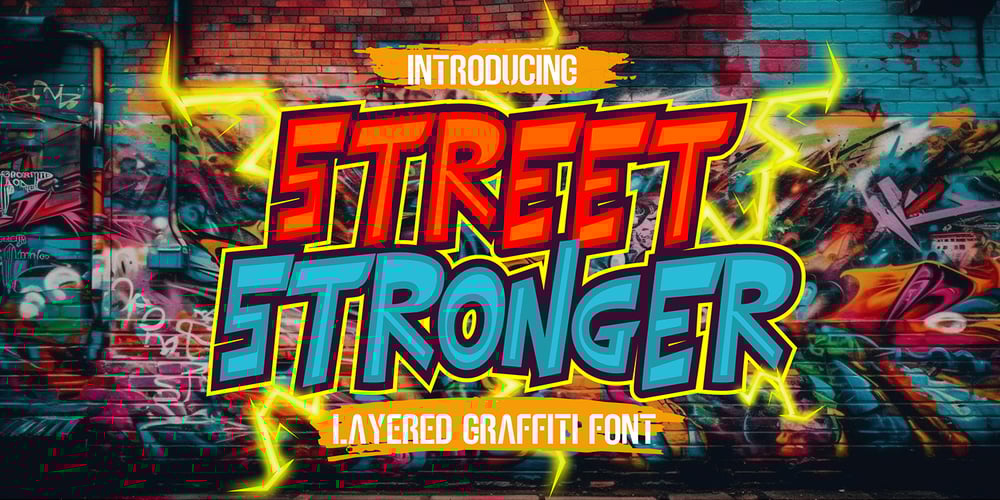
Street Stronger Font Family was designed by Sipanji and published by Sipanji21. Street Stronger contains 3 styles and family package options. “Street Stronger” is a graffiti font with three layers that can be used to create a three-dimensional (3D) effect on your text. By using these three layers in your design, you can add depth and dimension to your typography. Fonts with these layers are often used in street art, posters, or other designs that aim to create a prominent 3D effect.With “Street Stronger,” you have the ability to create text that looks different and adds a strong 3D impression by using the various layers. This allows you to customize the text’s appearance to fit your design vision and add a powerful three-dimensional touch to your project.